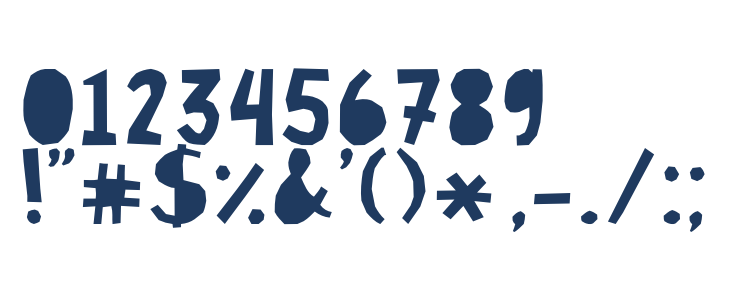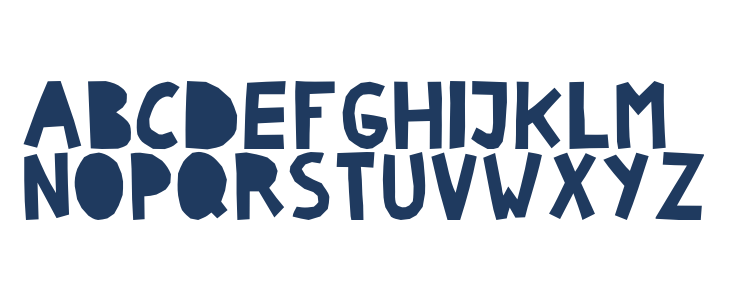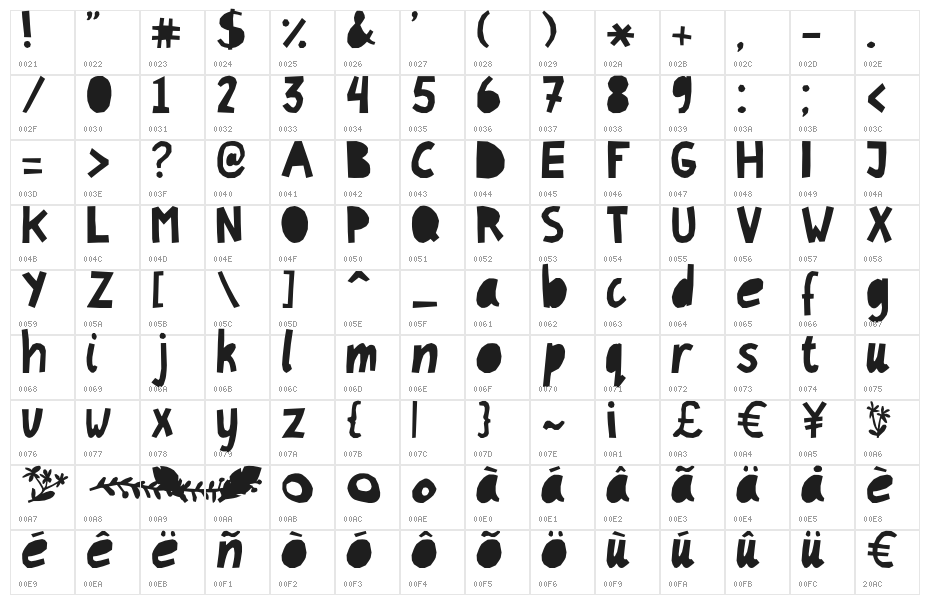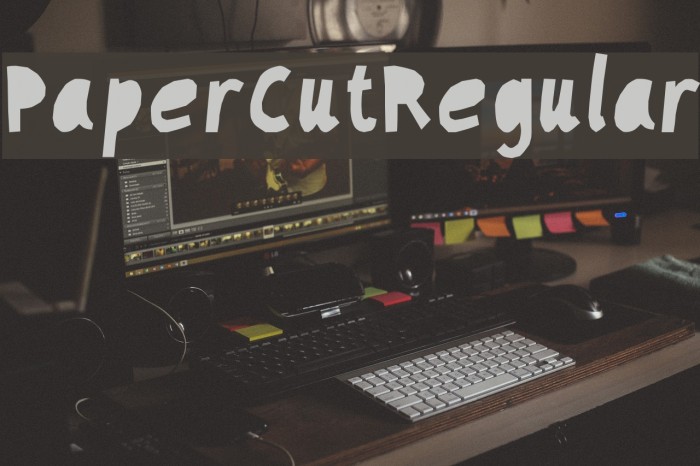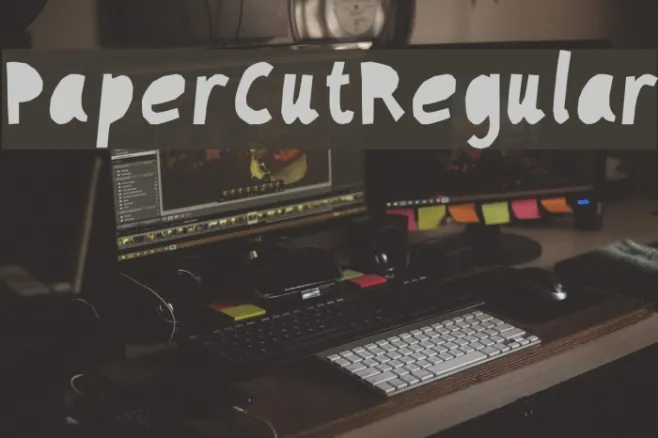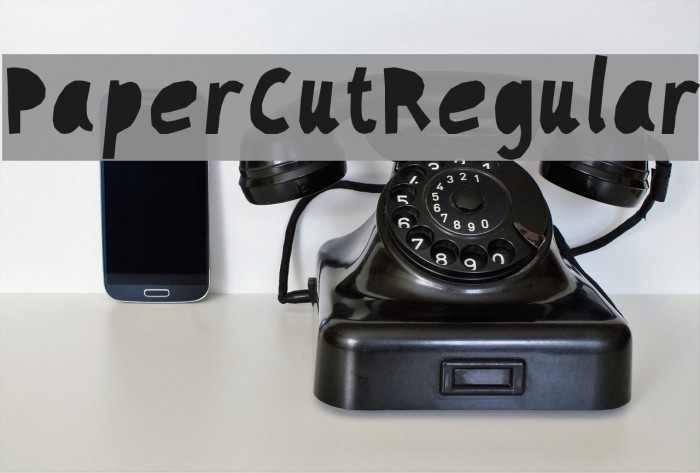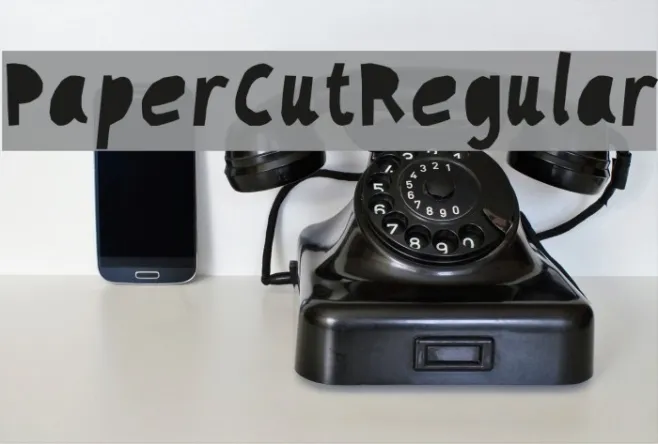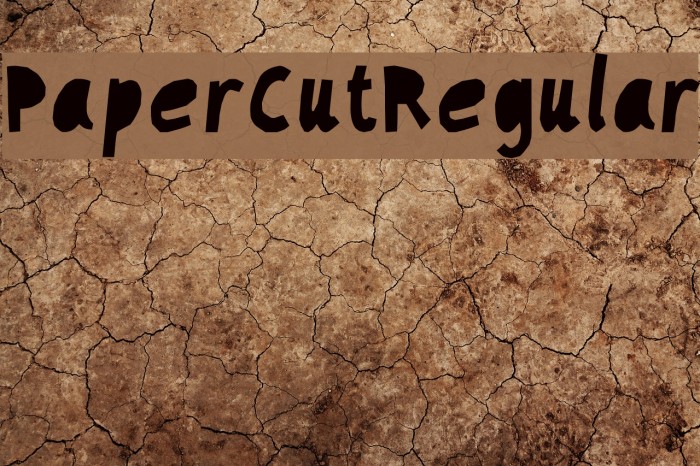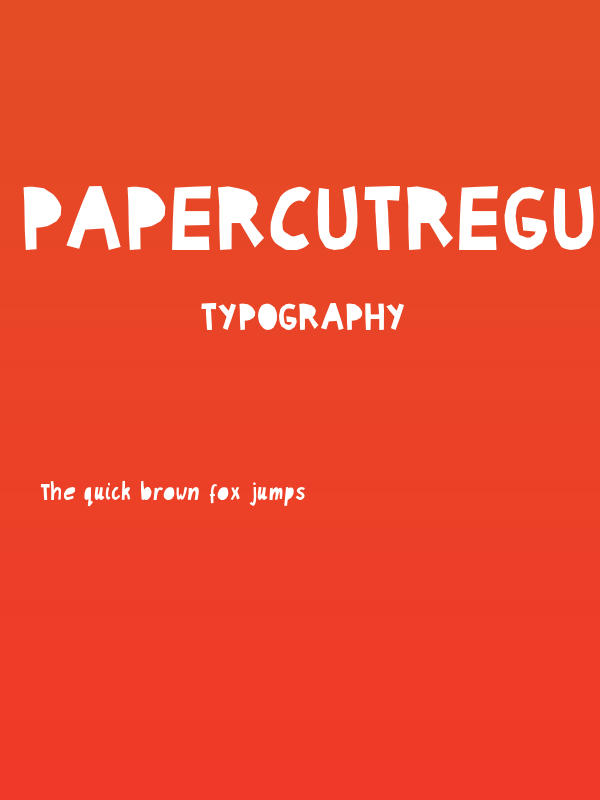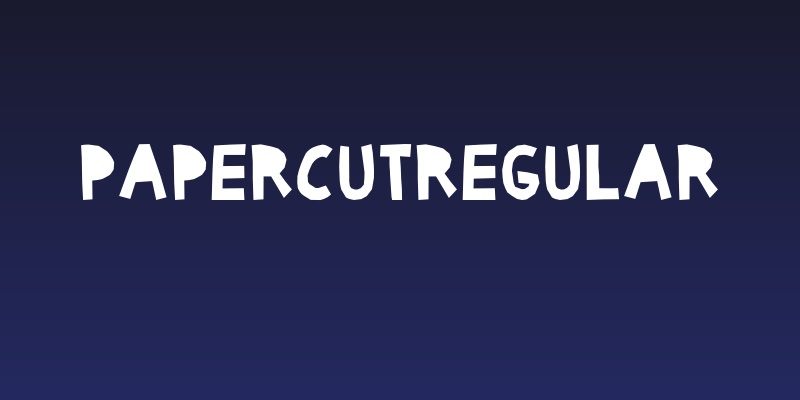
PaperCutRegular Font
PaperCutRegular Description
This font features a playful and irregular style, reminiscent of cut-out paper shapes. Each character has a unique, hand-crafted appearance, with varying thickness and angles that create a dynamic and lively feel. The uppercase and lowercase letters maintain a consistent whimsical theme, while the numbers and special characters follow suit with their quirky, uneven forms. This font exudes a sense of creativity and spontaneity, making it ideal for projects that require a fun and informal touch.
Proposed ProjectsIdeal for children's books, creative posters, scrapbooking, and playful branding projects.